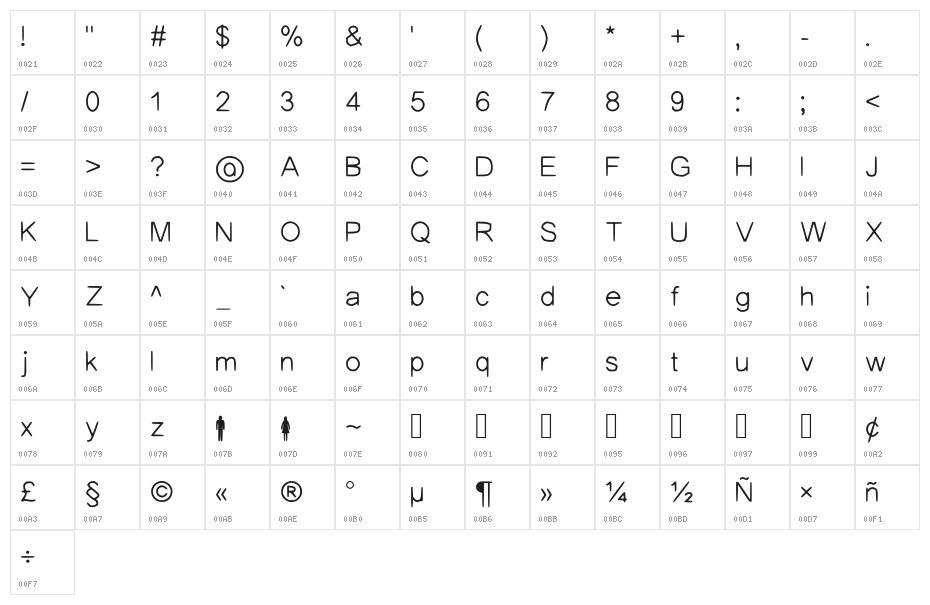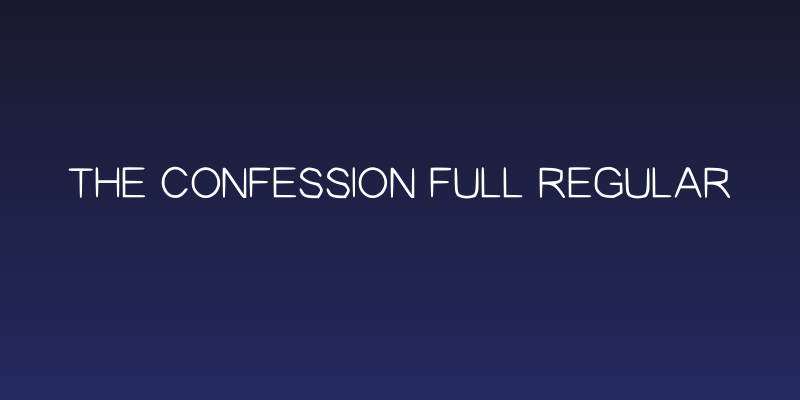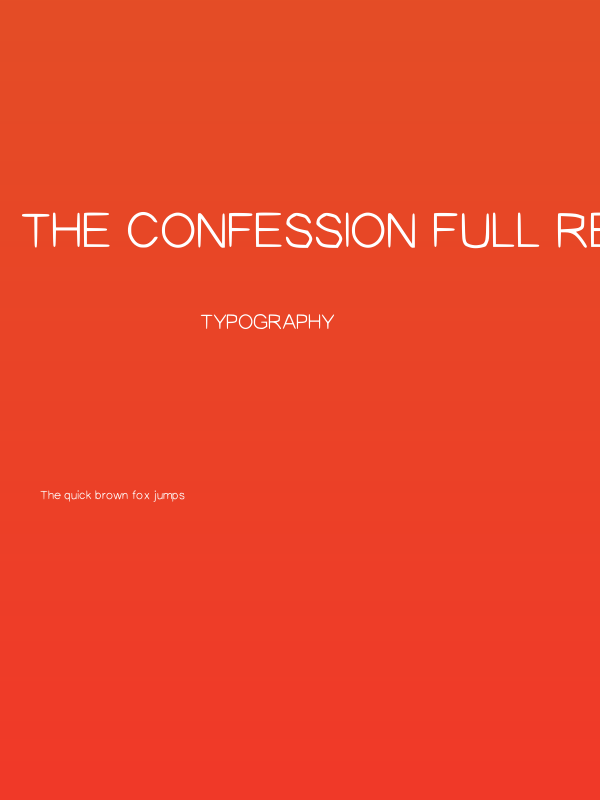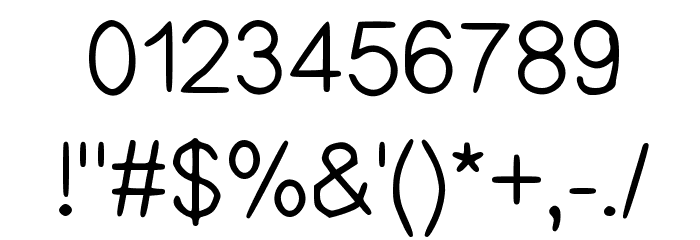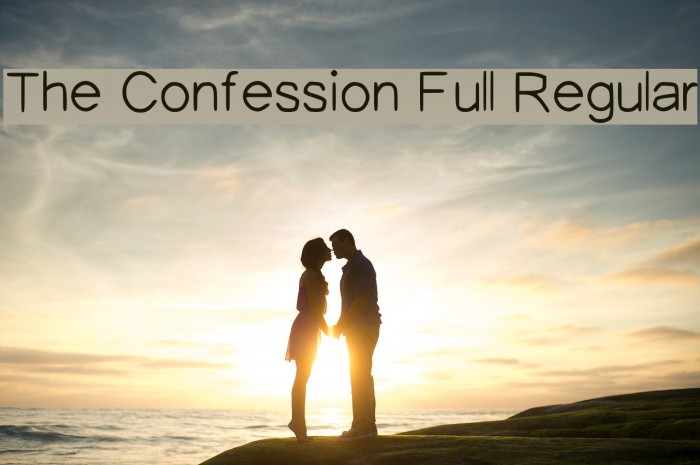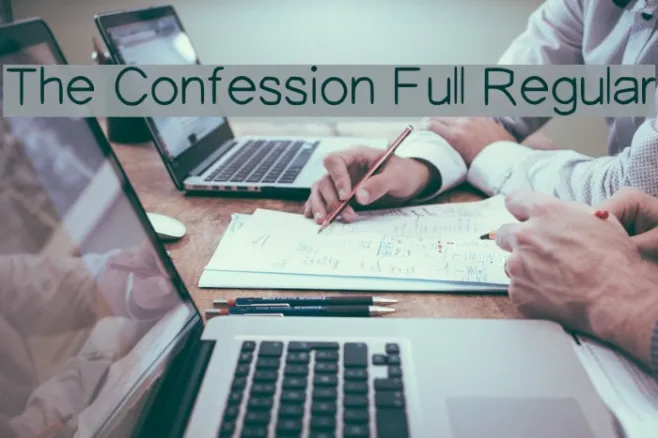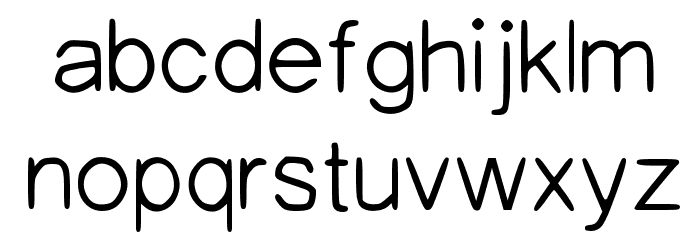
The Confession Full Regular Font
The Confession Full Regular Description
This font features a clean and modern sans-serif design with rounded edges, giving it a friendly and approachable appearance. The characters are evenly spaced, providing a balanced and harmonious look. The uppercase letters are bold and prominent, while the lowercase letters maintain a consistent style, enhancing readability. The numerals are clear and distinct, making them suitable for various applications. Special characters are well-integrated, maintaining the overall aesthetic of the font. Its simplicity and clarity make it versatile for both digital and print media.
| Proposed Projects | Ideal for branding, web design, advertising, and educational materials. |